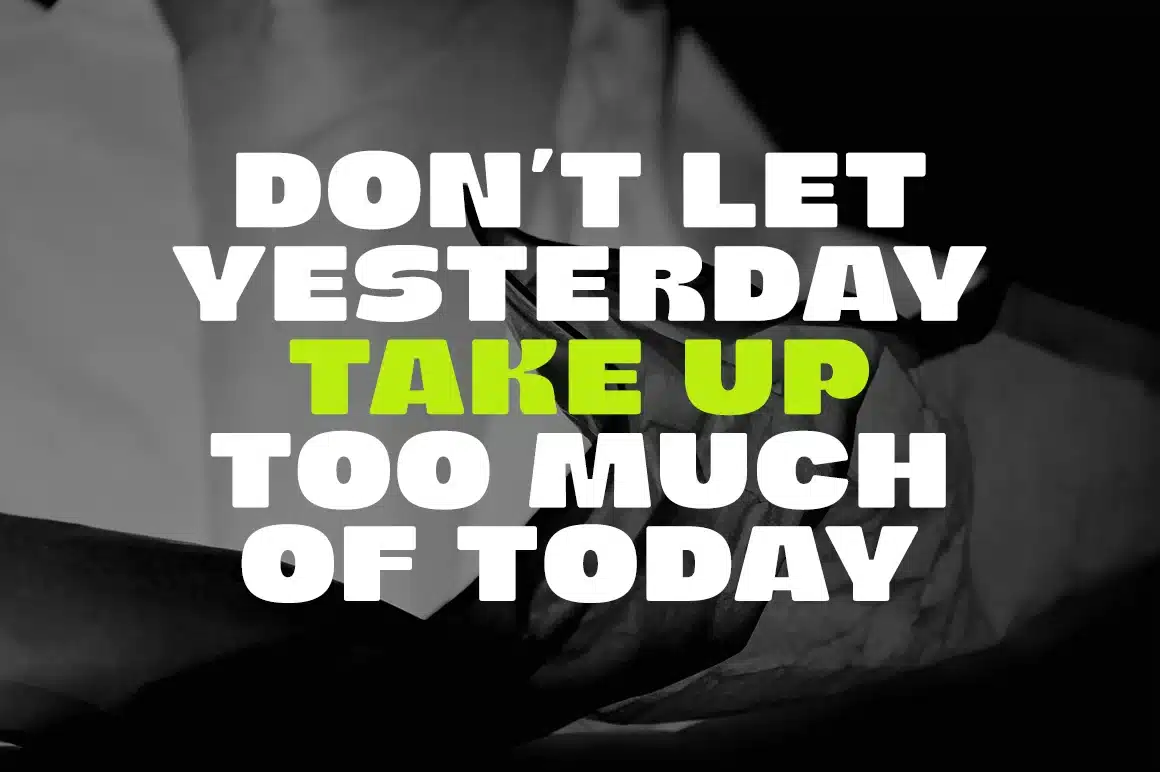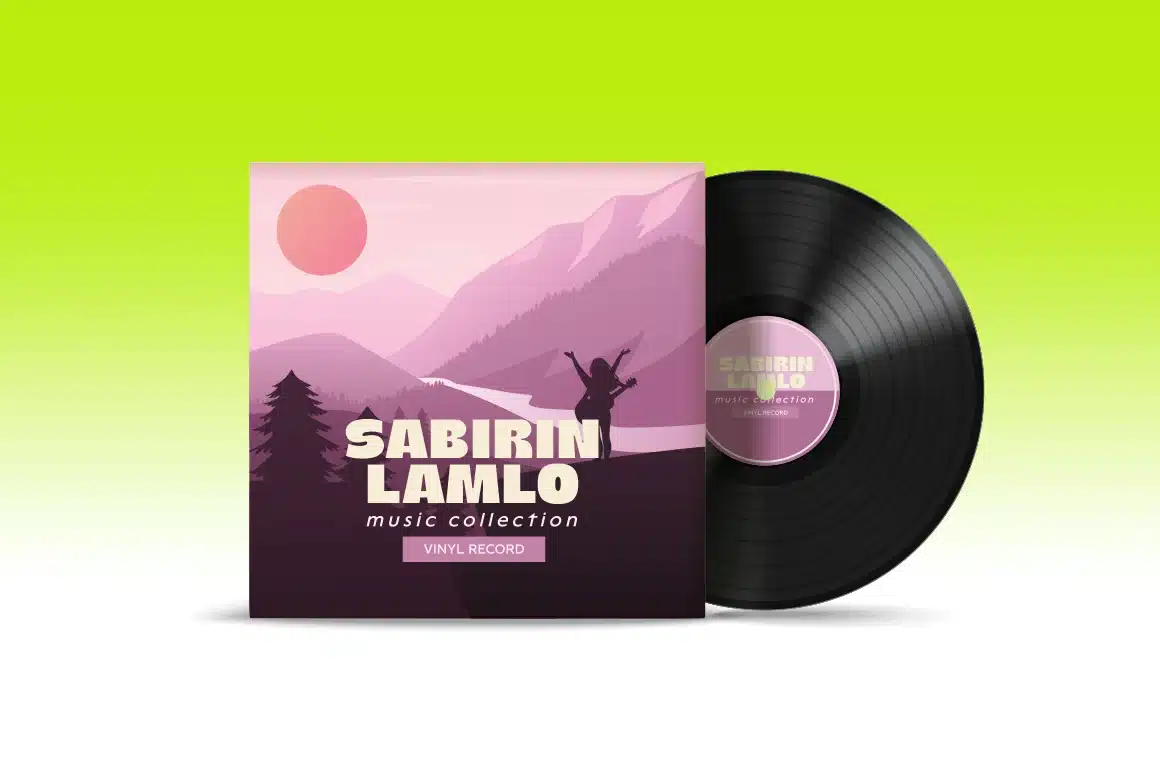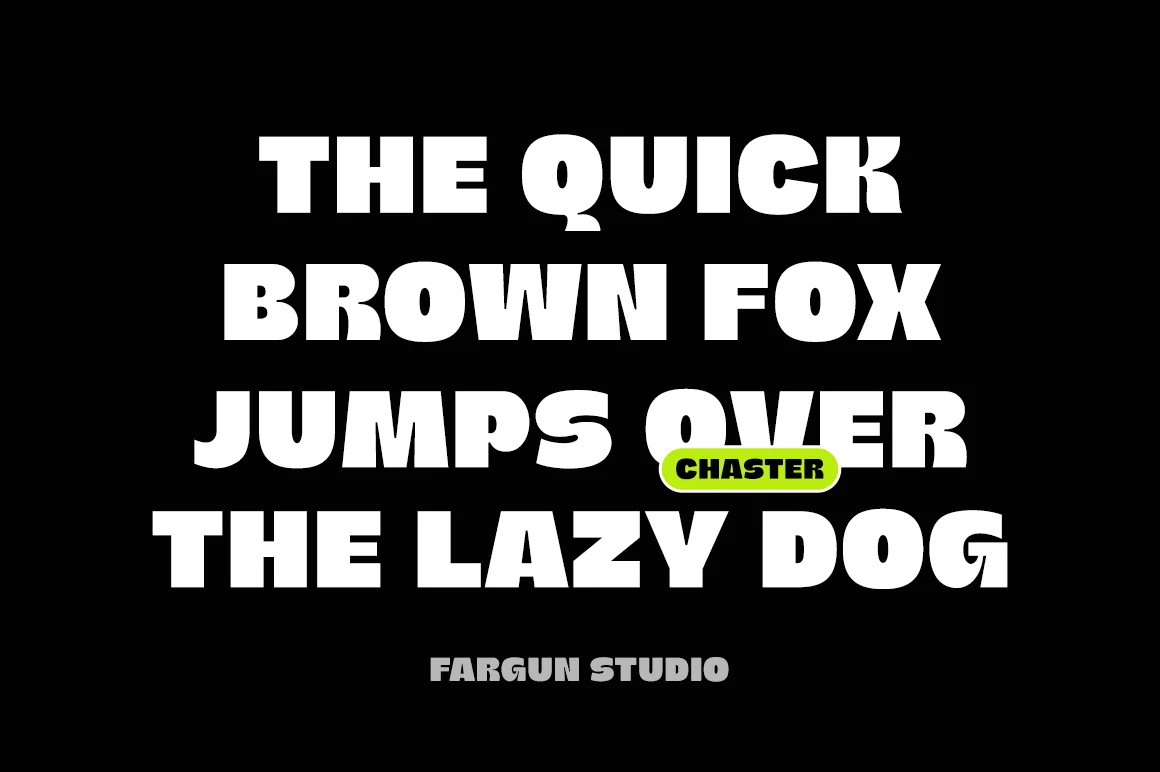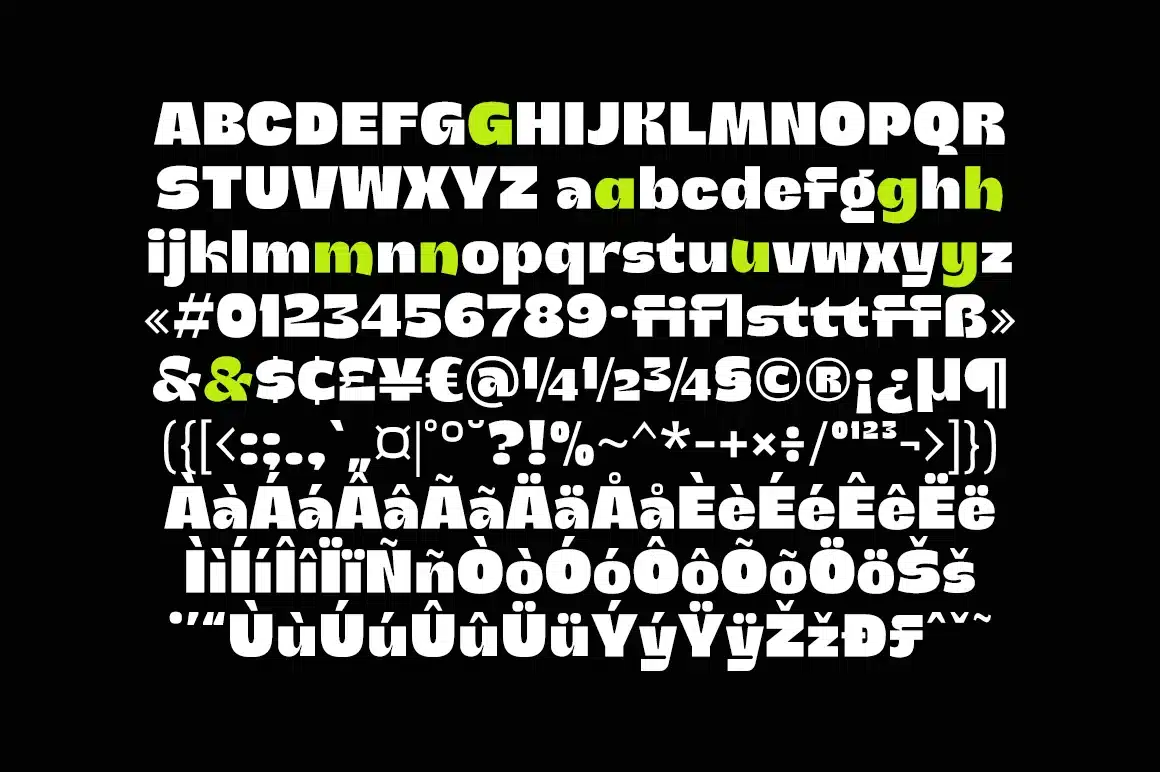
Chaster Font
Chaster is a rounded bold and Modern display typeface featuring characters that stand out from every background. It has multilingual language, it useful for your a cool and coolest project up next. Suitable for logos, posters, packaging, branding, cool invitations, etc.